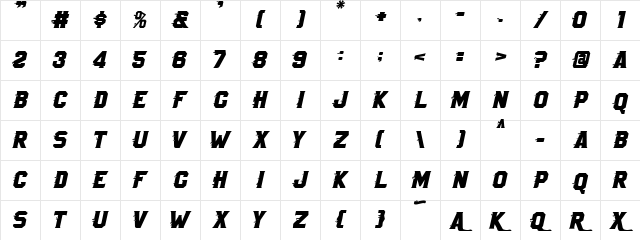
Royals is a composed and adaptable typeface that performs quietly and consistently across a wide range of design contexts. The slanted form adds forward momentum and visual energy.
Pro Tip: Use Royals for emphasis, pull quotes, and subheadings where its slanted energy can add rhythm to the layout.